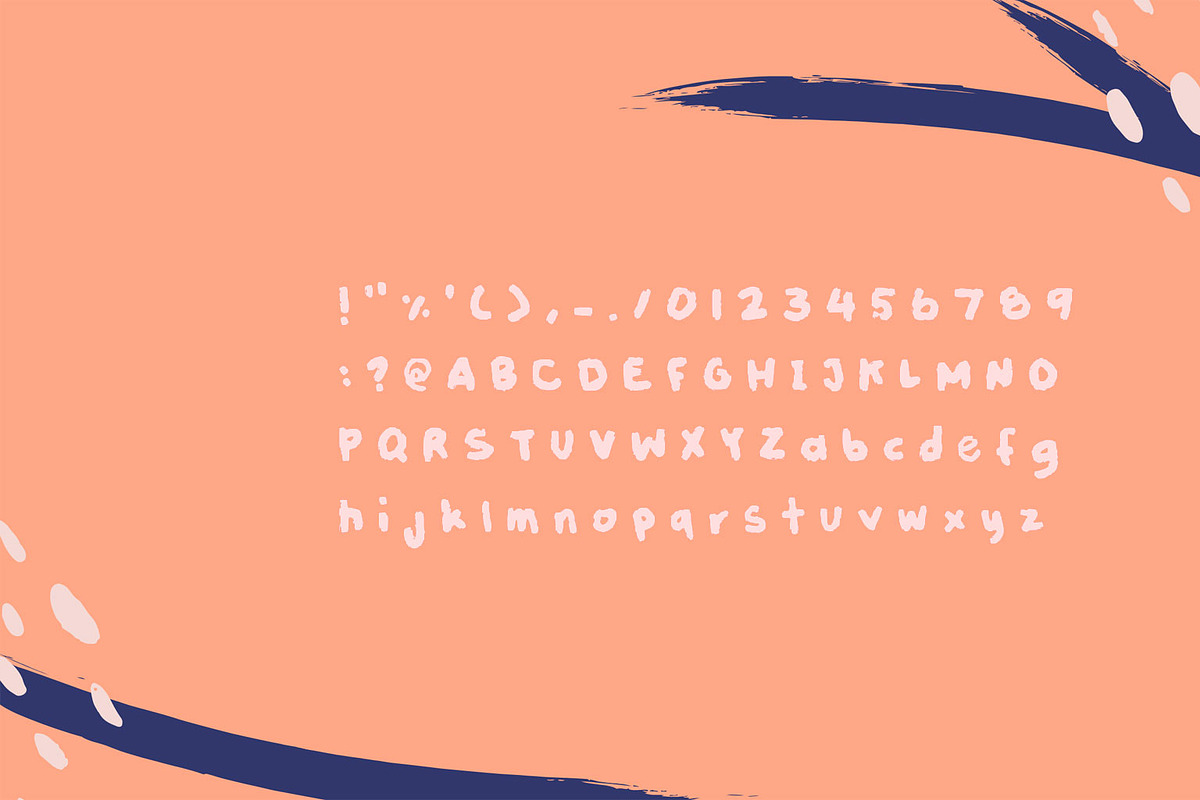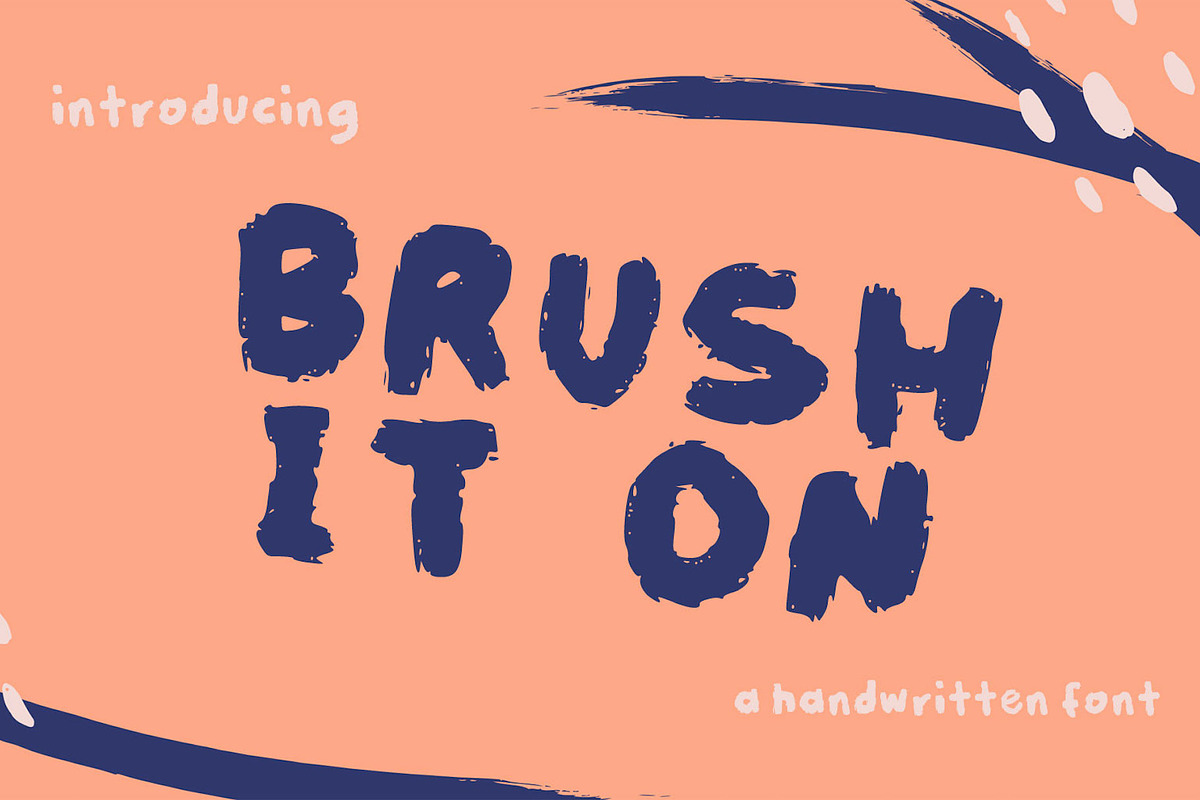
brush it on! a handwritten font
a handwritten font, to bring more life to your projects! otf and ttf files
brush it on! a handwritten font by dxxb studio fits naturally into Branding, posters, packaging, typography.